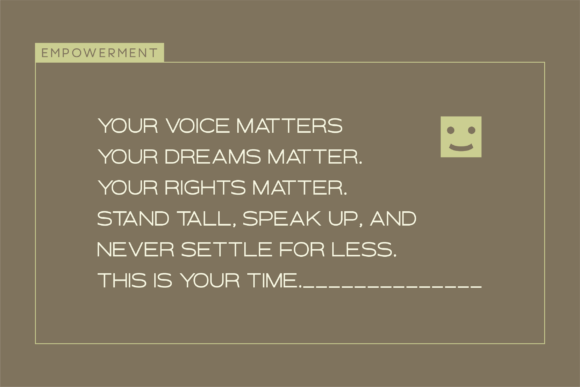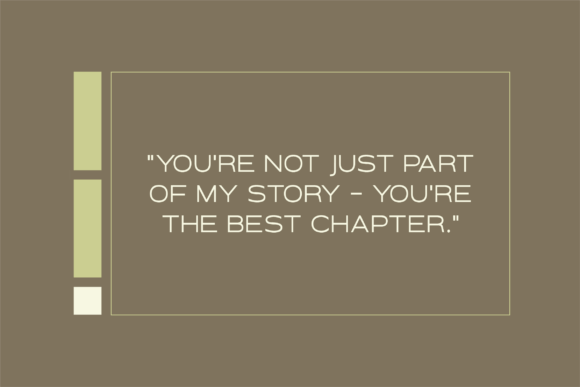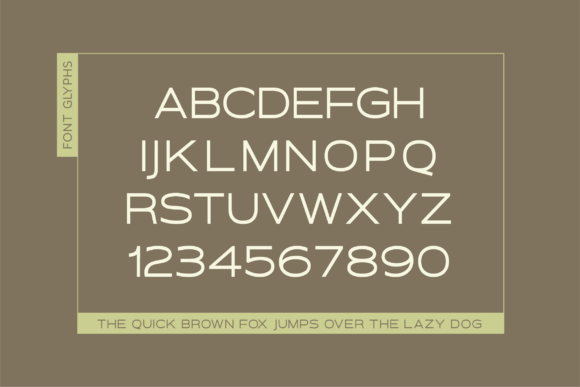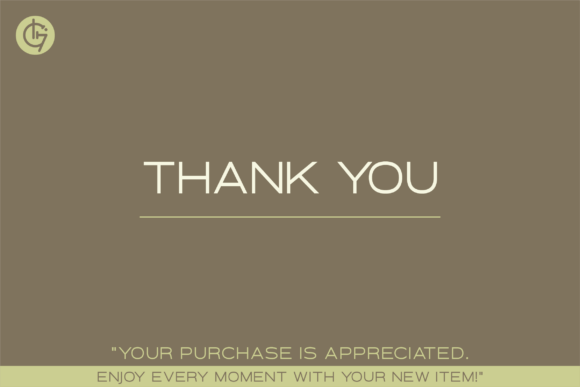
Introduction to Provoking Font
As designers, we’ve all been there – staring at a blank canvas, trying to spark that perfect creative moment. The blank page seems to stare back, taunting us with its emptiness. But what if we told you that there’s a secret ingredient that can give your design a boost of confidence and authority? Enter Provoking Font – a bold, all-caps sans serif typeface that’s about to revolutionize your creative projects.
Whether you’re working on a high-stakes branding campaign or a small-scale design project, Provoking Font is the perfect design resource to add some serious punch. Its clean lines, minimalist aesthetic, and transparent background make it a versatile and high-quality font that’s perfect for digital interfaces, print materials, and everything in between.
About Provoking Font
With Provoking Font, you can take your design to the next level. This all-caps sans serif font is designed for maximum impact, making it ideal for headlines, posters, and anywhere you need your message to stand out. And the best part? It’s available for free download, so you can start using it on your next creative project right away.
Key Features of Provoking Font
- Unique and Creative Design: Provoking Font offers a distinctive and creative design perfect for any project, from digital art to print materials.
- High-Quality Typography: This font features high-quality typography with precise details, ensuring a professional look in any creative project.
- Transparent Background Option: The transparent background option in Provoking Font allows for seamless integration with any design, providing flexibility for designers.
- Large Character Set: Provoking Font includes a large character set, including uppercase and lowercase letters, numbers, and special characters, making it suitable for a wide range of creative projects.
Honest Review: Provoking Font
I recently had the opportunity to work with the Provoking Font, and I must say it’s been a game-changer for my creative projects. This high-quality design resource has been a lifesaver when it comes to adding an extra touch of sophistication to my designs.
- ✨ High-quality typography: The Provoking Font offers crisp, clean lines and a wide range of styles to suit any design project.
- ✨ Transparent background: This feature allows for seamless integration with any background, giving me the freedom to focus on the design itself.
⚠️ Limited character support: While the font itself is excellent, I did encounter some issues with character support when using it in certain languages.
⚠️ Limited customization options: While the font is highly versatile, I found that I was limited in my ability to customize it to suit specific design needs.
Overall, I’m extremely impressed with the Provoking Font. Its high-quality typography, transparent background, and free download make it a valuable addition to any designer’s toolkit. While it may have some limitations, I would highly recommend it to anyone looking to elevate their creative projects.
The Provoking Font is a unique and creative design resource ideal for any project that demands a bold and eye-catching style. This high-quality font is available for free download and can be easily integrated into various design tools.
Tips for Getting the Most Out of Provoking Font
To get the most out of the Provoking Font, use it with a transparent background to make it stand out in your designs. Experiment with different font sizes and colors to achieve a unique look.